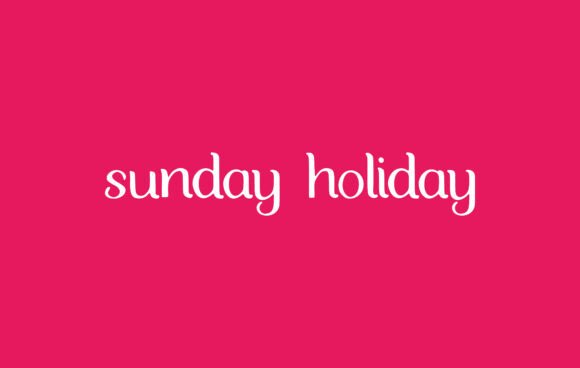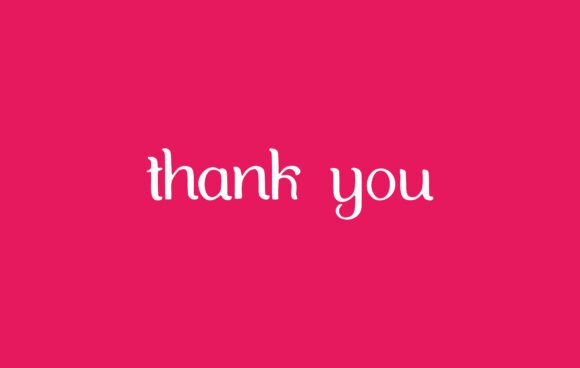
Introduction to Moonbeam 77 Font
Have you ever stared at a blank page, struggling to bring your creative vision to life? The blank space seems to stare back, taunting you to fill it with something beautiful. And then, it happens – the perfect font appears, like a ray of sunshine breaking through the clouds. For designers, finding the right font can be a game-changer, elevating a project from mere mortal to extraordinary.
One such font that can transform your creative project is the Moonbeam 77 Font. This authentic handwritten font exudes a romantic touch, making it perfect for a wide range of designs. Whether you’re crafting magazine headlines, social media posts, or wedding invitations, Moonbeam 77 Font is a high-quality design resource that will make your work stand out.
With its transparent background and free download option, Moonbeam 77 Font is an accessible design resource that can be used in a variety of creative projects. Its versatility and legibility make it a valuable asset for designers, allowing them to bring their ideas to life with ease.
Key Features of Moonbeam 77 Font
- Features a transparent background, ideal for overlaying on images or videos
- Includes a range of characters, including uppercase and lowercase letters, numbers, and symbols
- Perfect for designers and artists looking for a unique, high-quality font for their creative projects
Honest Review: Moonbeam 77 Font
I recently had the chance to work with the Moonbeam 77 Font for a creative project, and I must say it’s a high-quality design resource that’s definitely worth considering. One of the standout features of this font is its unique, dreamy quality that’s perfect for projects that need a touch of whimsy. ✨
Here are some of the key features that make the Moonbeam 77 Font stand out:
- Unique, dreamy quality that adds a touch of whimsy
However, one of the limitations of the Moonbeam 77 Font is that it may not be suitable for projects that require a more formal or professional tone. ⚠️
Overall, I’m really impressed with the Moonbeam 77 Font and would definitely recommend it to designers looking for a high-quality, creative design resource. With its unique style and versatility, it’s an excellent choice for a wide range of projects.
The Moonbeam 77 Font is perfect for a variety of creative projects, including logos, typography-based designs, presentations, documents, and business materials. It’s also great for creating designs for social media, websites, and other online platforms.